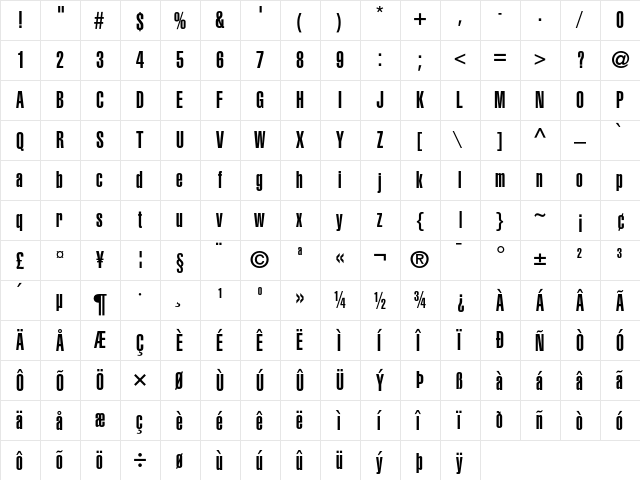
Helvetica Ultra Compressed
Design Context for Helvetica Typeface
Helvetica offers clean, dependable letterforms without strong stylistic allegiance, making it a practical choice for designers who need flexibility.
Pro Tip: Use Helvetica in both headline and body roles to test its range before committing to a single application.